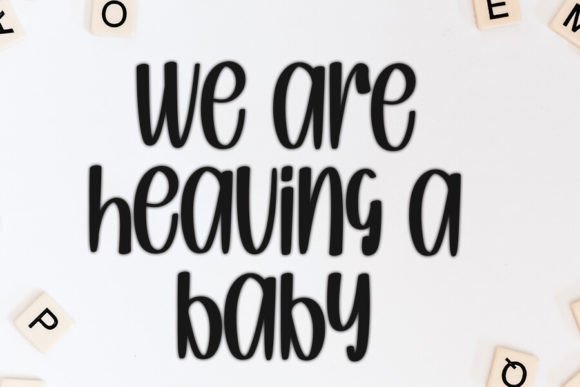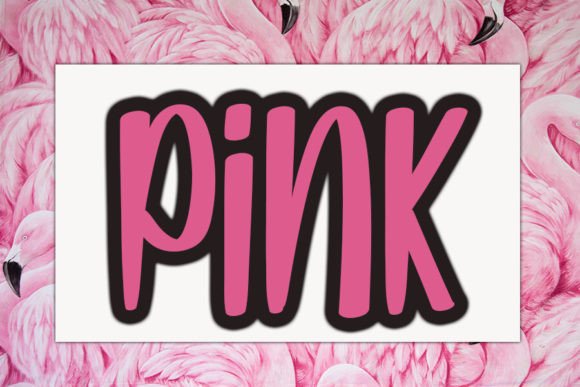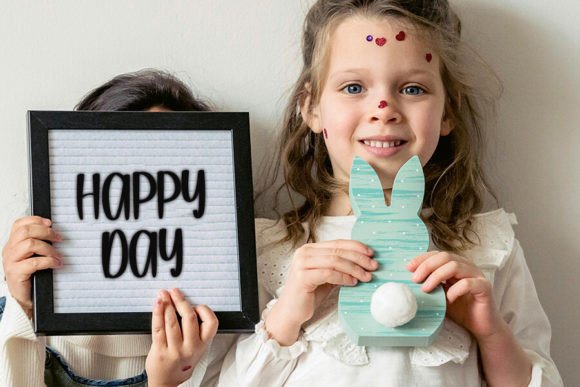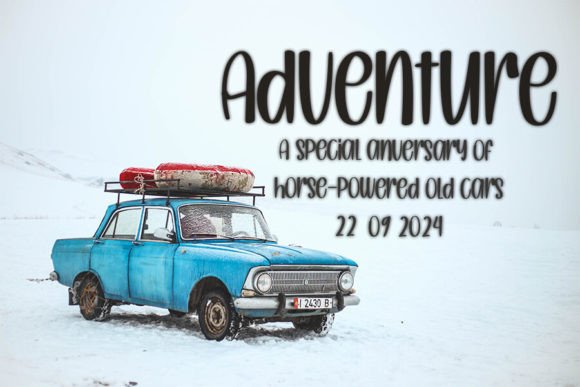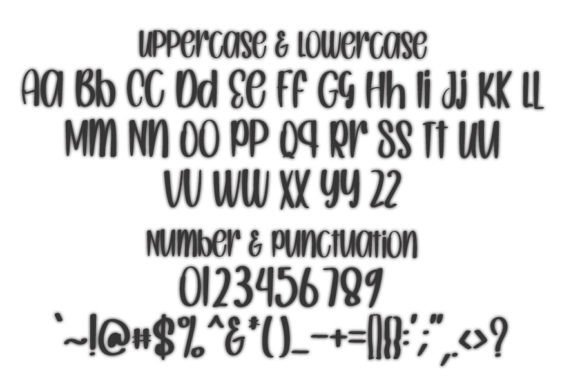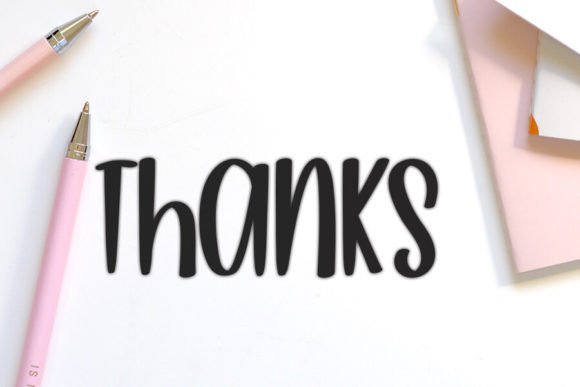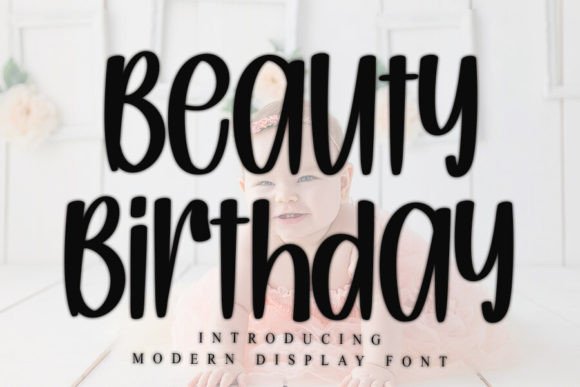
Introducing Beauty Birthday Font: Elevate Your Designs with a Modern Display Font
Are you tired of using the same old fonts for your designs? Look no further! Beauty Birthday Font is here to revolutionize the way you create. This modern display design font is perfect for designers and crafters who want to add a touch of elegance and uniqueness to their work. With its natural and unique style, Beauty Birthday Font is incredibly versatile and can be used for a wide range of designs, from birthday cards to branding and advertising.
What Makes Beauty Birthday Font So Special?
Beauty Birthday Font is a modern display font that boasts a distinctive and eye-catching style. Its natural and unique design makes it stand out from other fonts, allowing you to create stunning designs that capture attention. Whether you’re creating a birthday card, a fashion blog, or a product label, Beauty Birthday Font is the perfect choice. The only limit is your imagination!
Key Features of Beauty Birthday Font
- Modern Display Design: Beauty Birthday Font features a sleek and contemporary design that’s perfect for making a statement.
- Natural and Unique Style: The font’s natural and unique style makes it incredibly versatile and suitable for a wide range of designs.
- Highly Readable: Despite its decorative nature, Beauty Birthday Font is highly readable, making it perfect for use in both digital and print designs.
- Multilingual Support: The font supports multiple languages, allowing you to create designs for a global audience.
Beauty Birthday Font is a dream come true for designers and crafters who want to create stunning designs without spending hours agonizing over font choices. With its unique and natural style, this font is perfect for:
- Birthday Cards and Invitations: Create beautiful and eye-catching birthday cards and invitations that will make your friends and family swoon.
- Fashion and Beauty Brands: Use Beauty Birthday Font to create stunning branding and advertising materials that will make your fashion or beauty brand stand out.
- Blogging and Social Media: Add a touch of elegance to your blog or social media posts with Beauty Birthday Font.
- Crafting and DIY Projects: Use Beauty Birthday Font to create beautiful and unique labels, signs, and other DIY projects.
Tips for Using Beauty Birthday Font
To get the most out of Beauty Birthday Font, here are a few tips to keep in mind:
- Use it as a Statement Font: Beauty Birthday Font is perfect for making a statement, so use it sparingly to add emphasis to your designs.
- Pair it with Neutral Fonts: Pair Beauty Birthday Font with neutral fonts to create a beautiful contrast and add visual interest to your designs.
- Experiment with Colors and Textures: Don’t be afraid to experiment with different colors and textures to add depth and interest to your designs.